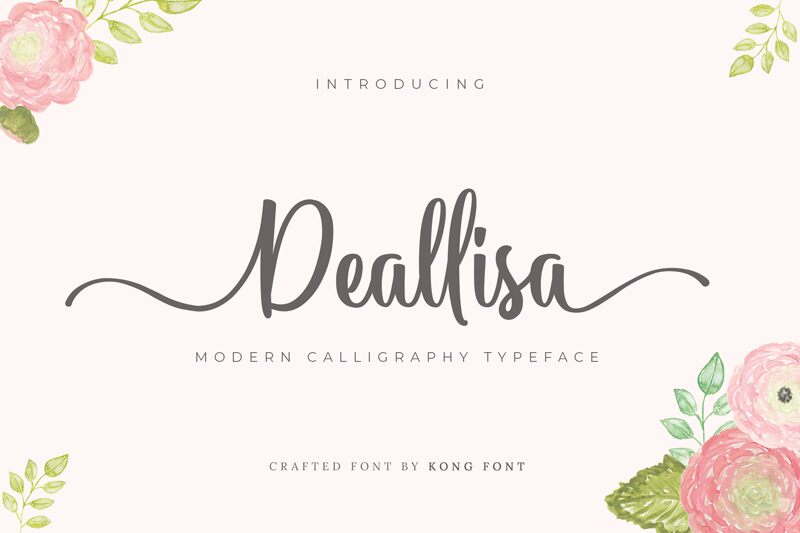
Deallisa font family by Kong Font is a free flowing calligraphy typeface containing 4 font styles. The harmonious curves and graceful designs make for an elegant font which will beautifully complement your projects which deal with creativity and art. The subtle visual cues help make this font expressive and suitable for a wide range of objectives.
Deallisa font works particularly well on large formats. Therefore, it is highly recommended for use in banners and signages for artistic events. However, it can also be put to good use in magazines, albums, storybooks, cards, posters, and various decorative applications.